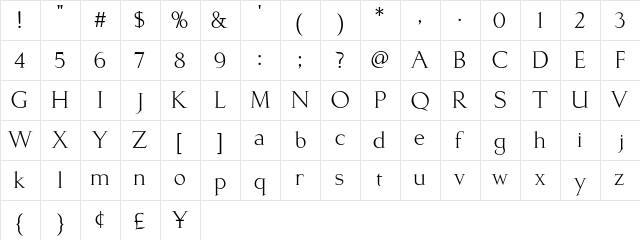
Kurosawa Serif
Design Context for Kurosawa Typeface
Kurosawa carries the refined structure of traditional serif typography, with bracketed terminals and considered proportions that communicate credibility and craft.
Pro Tip: Use Kurosawa for editorial body copy and considered headline work. Pair with a neutral sans for UI elements or captions to create a classic hierarchy.